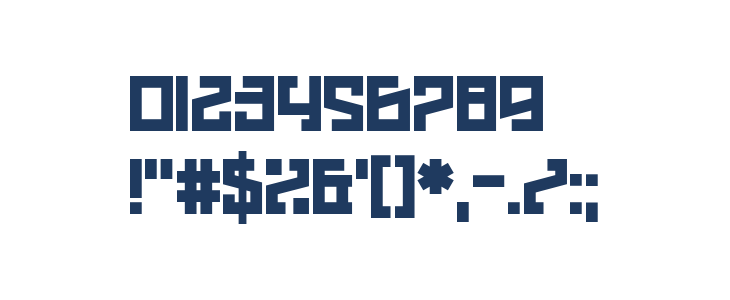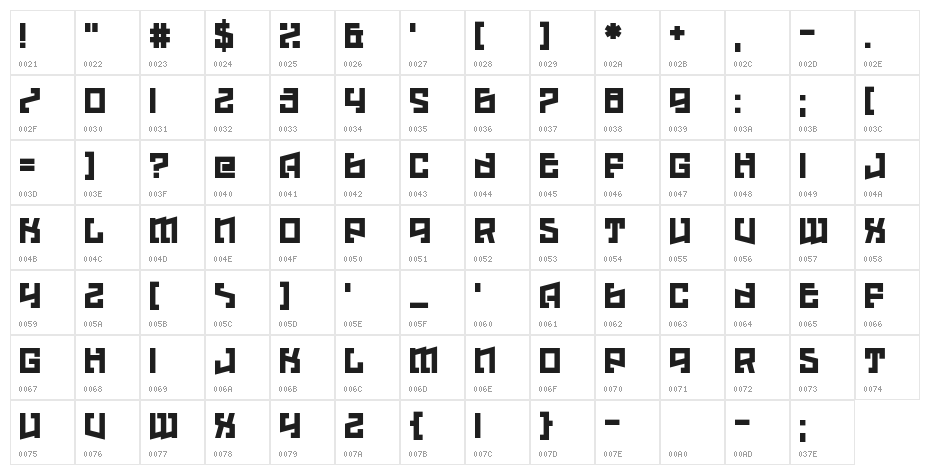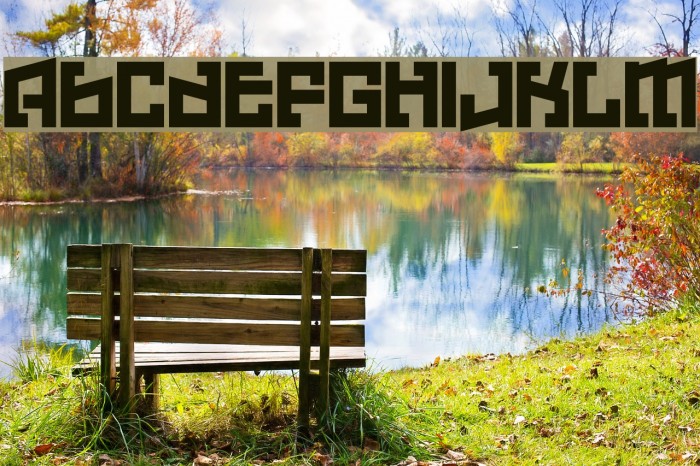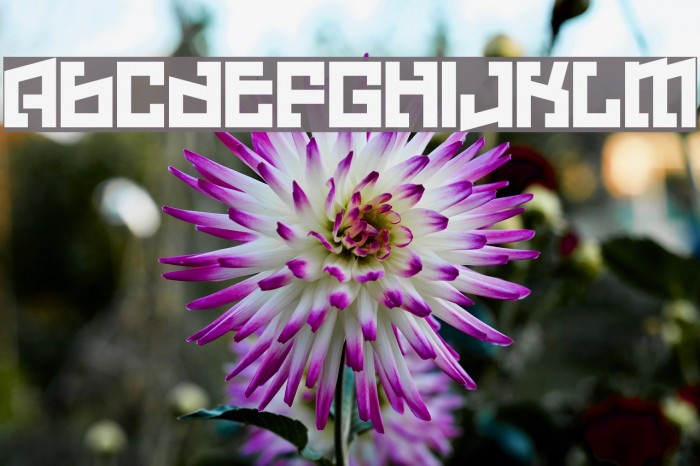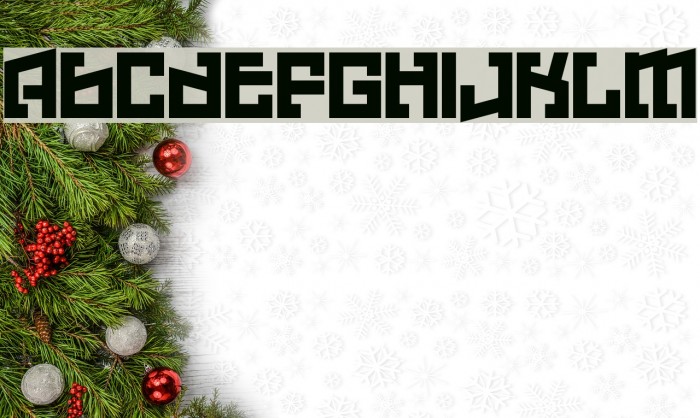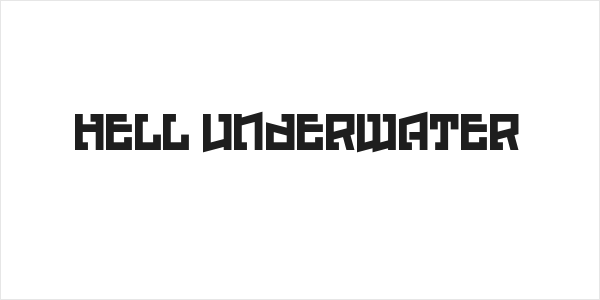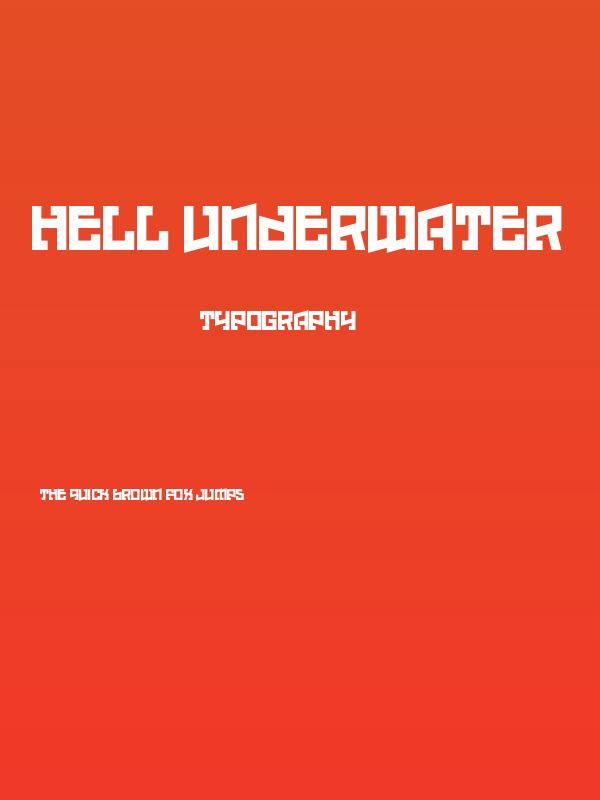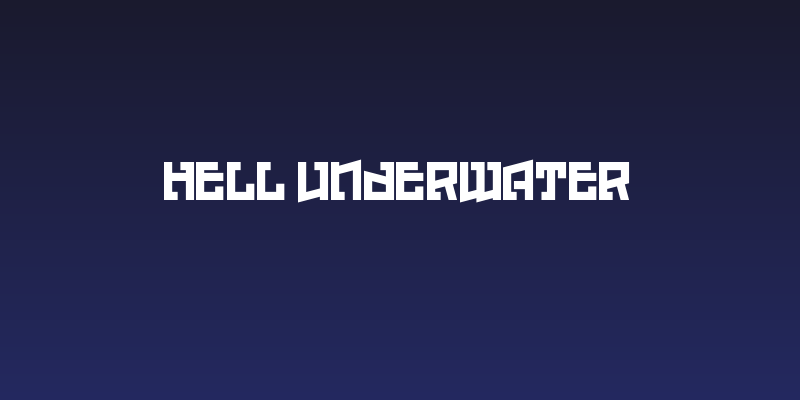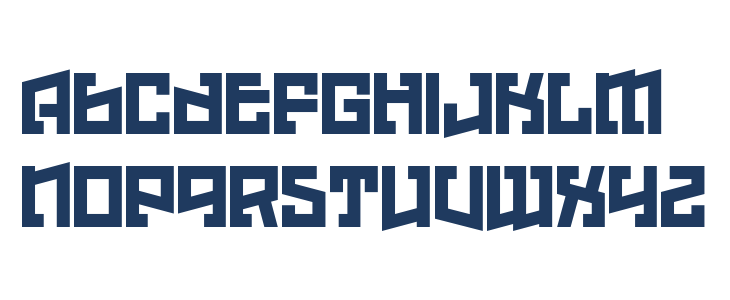
Hell Underwater Font
Hell Underwater Description
This font features a bold and geometric design with a distinct blocky appearance. Each character is constructed with sharp angles and straight lines, creating a strong visual impact. The uppercase and lowercase letters maintain a consistent style, with the lowercase being slightly smaller but equally bold. Numbers and special characters follow the same geometric pattern, ensuring uniformity across all elements. The font's unique style makes it stand out, suitable for projects that require a modern and edgy look.
| Proposed Projects | Ideal for posters, logos, video game graphics, and branding materials that require a modern and striking appearance. |